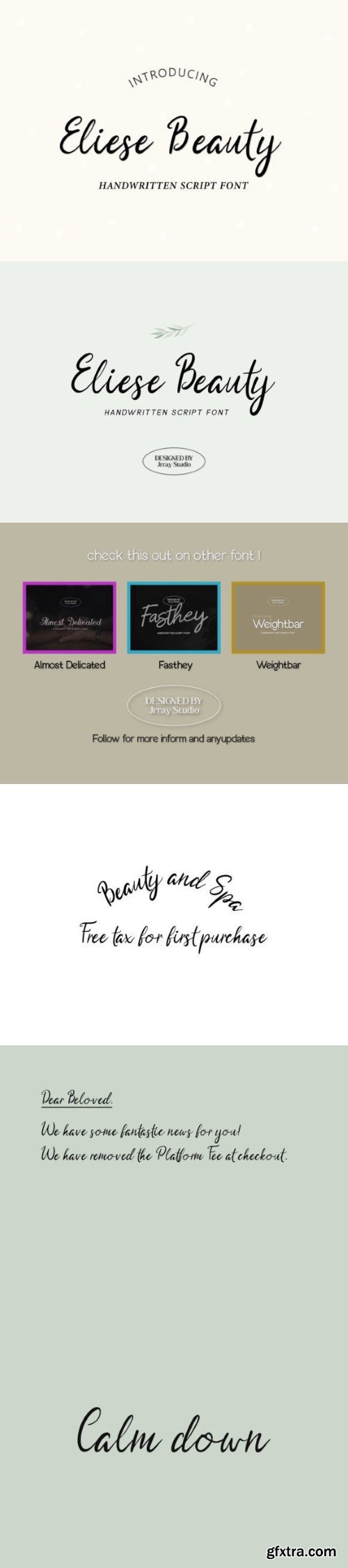
Say hello to “Eliese Beauty” , a Professional Handwritten Script font typeface.
It’s very recommended for beauty content, signature project and Perfect for invitations, greeting cards, and personal branding, spa, salon, magazine, book ect. Eliese Beauty brings a timeless charm to your written expressions.